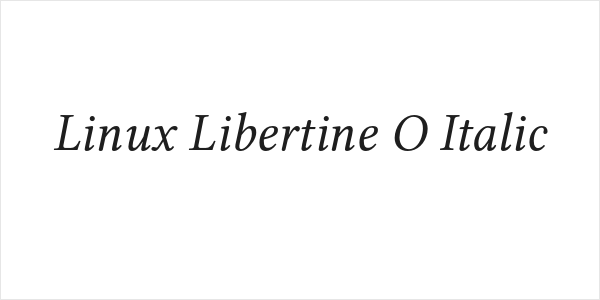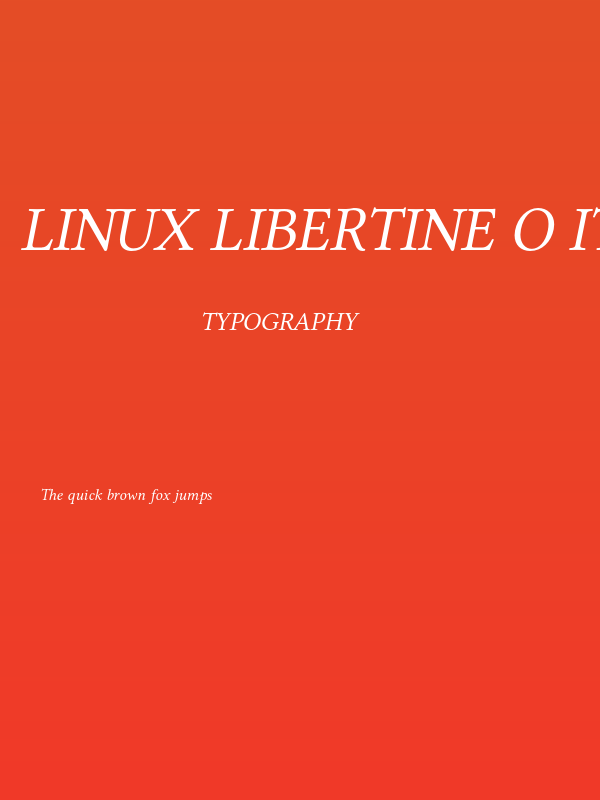
Linux Libertine O Italic Font
Linux Libertine O Italic Description
This font exudes a classic elegance with its serif style and italicized form, offering a sophisticated and timeless appearance. The characters are well-proportioned, with a slight slant that adds a dynamic flow to the text. The serifs are pronounced yet refined, contributing to the font's readability and charm. The uppercase letters are stately, while the lowercase letters maintain a graceful continuity. The numerals are clear and balanced, making them suitable for both formal and informal contexts. Special characters are thoughtfully designed, ensuring consistency across all glyphs.
| Use Case | Body text, Headlines, Logos |
| Proposed Projects | Ideal for book publishing, formal invitations, academic papers, and elegant branding. |